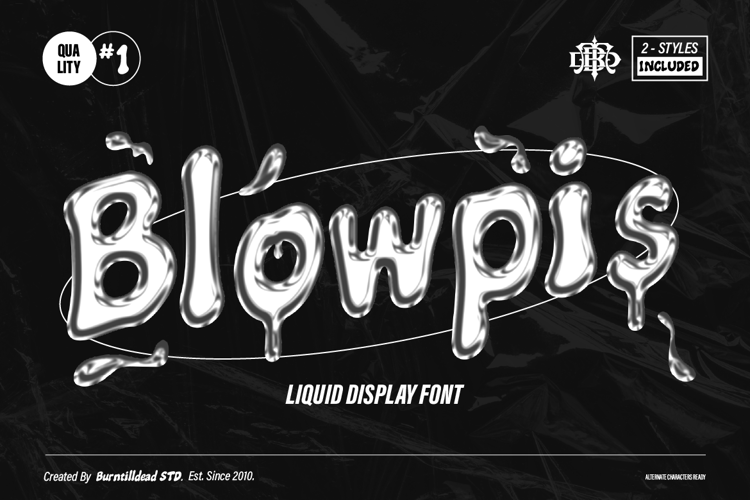
Blowpis Font
Blowpis is a fun liquid bubble font with regular and solid styles, perfect for posters, Y2K designs, horror vibes, and experimental typography.